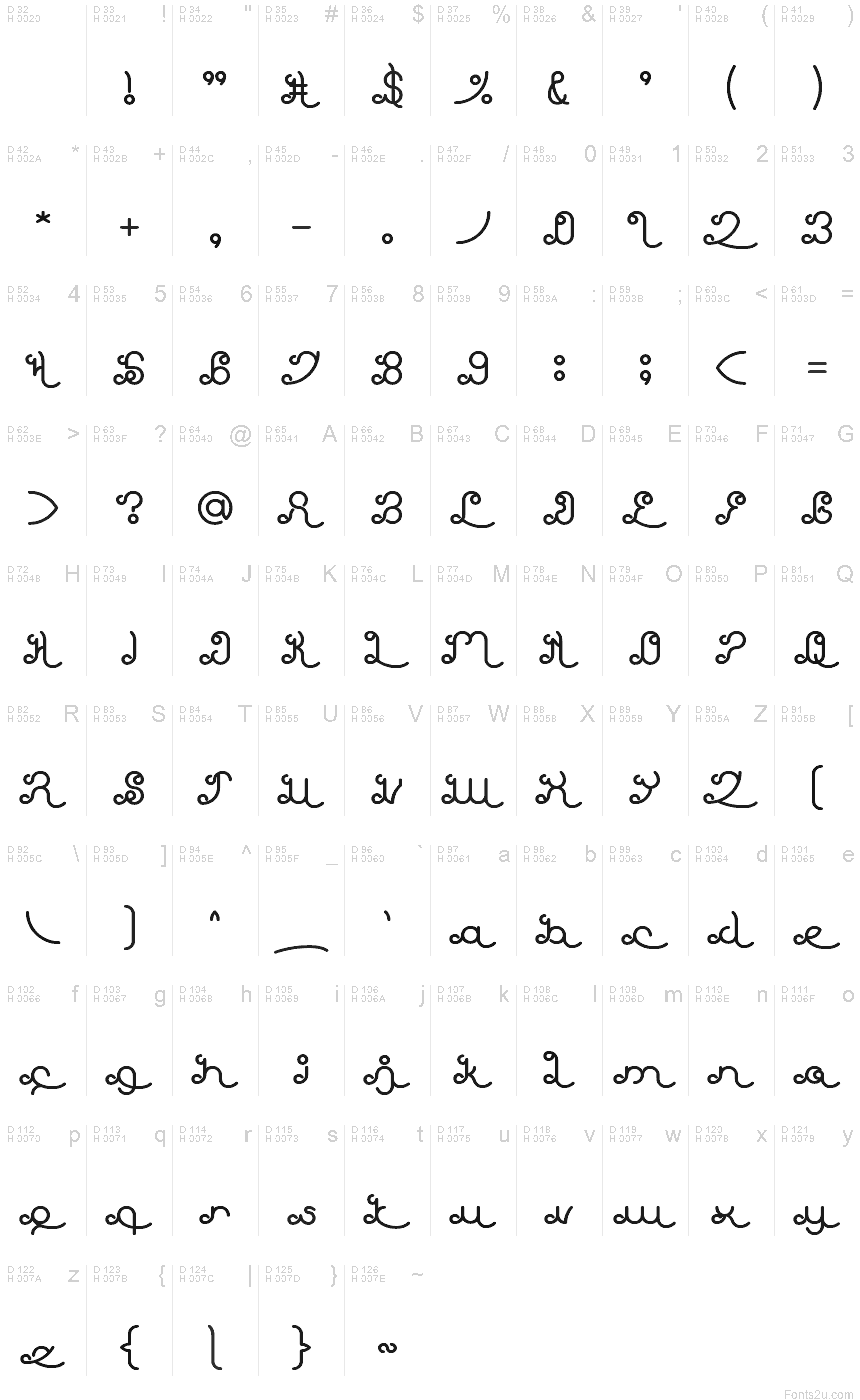
Ethereal Sky Bold
Update looks several letter, capital case, Lower case, punctuation, symbol, number, bold, italic,bold italic also adding hollow, inverse, hollow inverse style